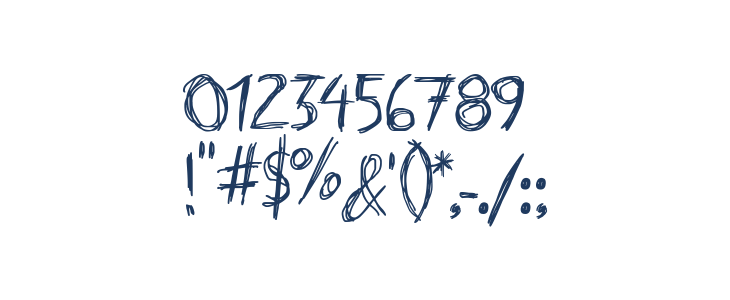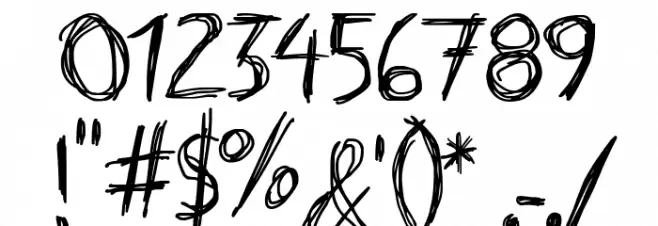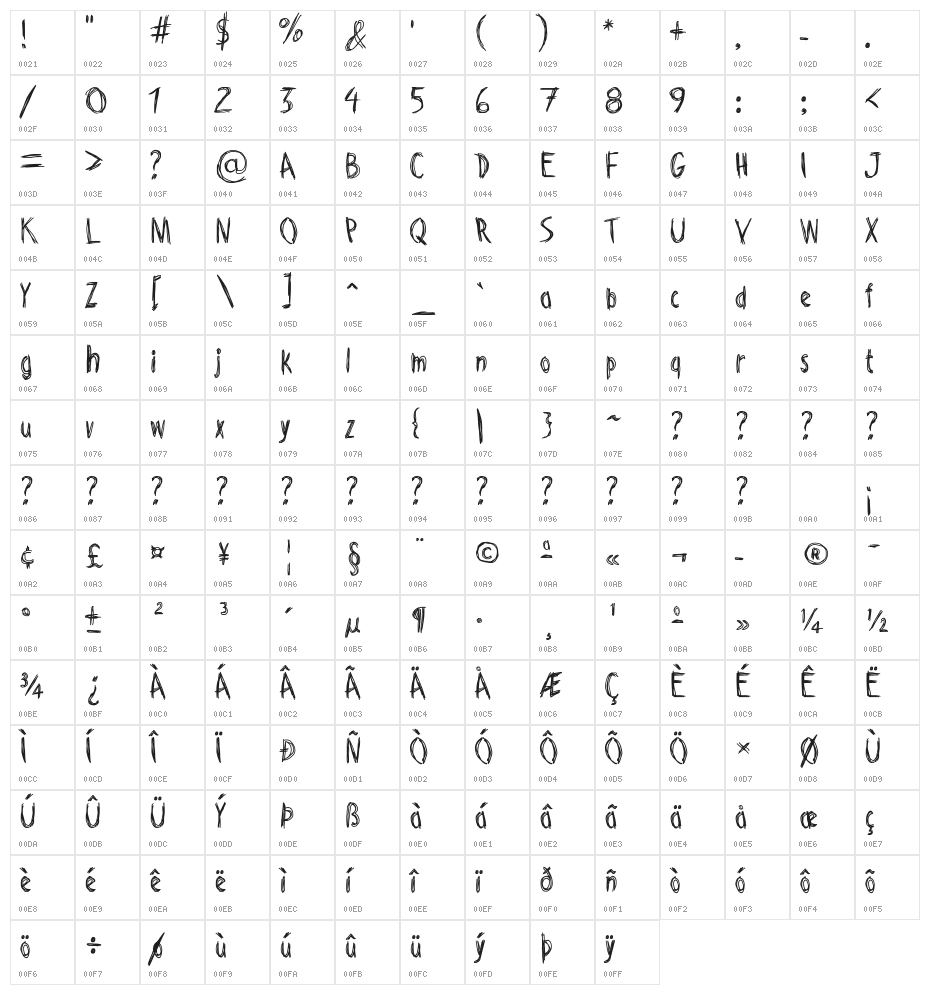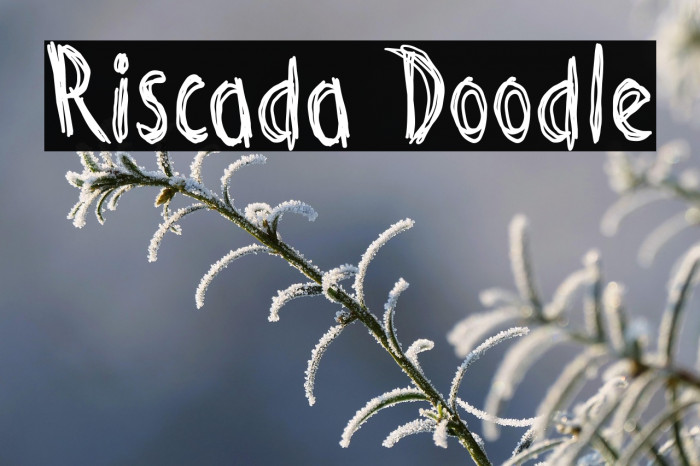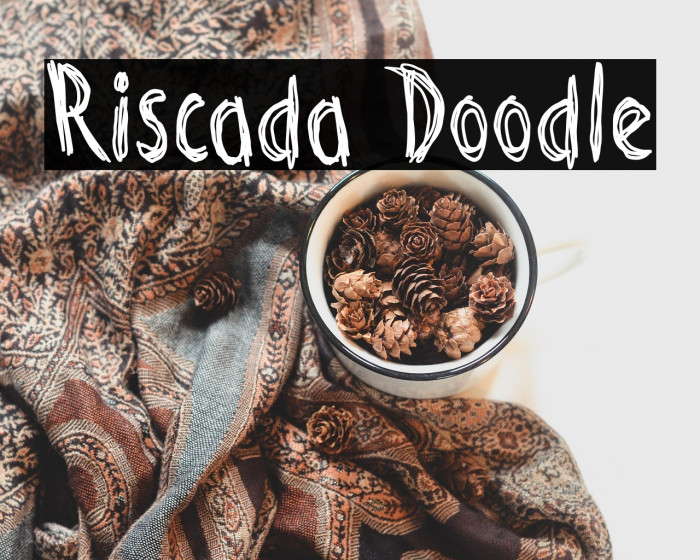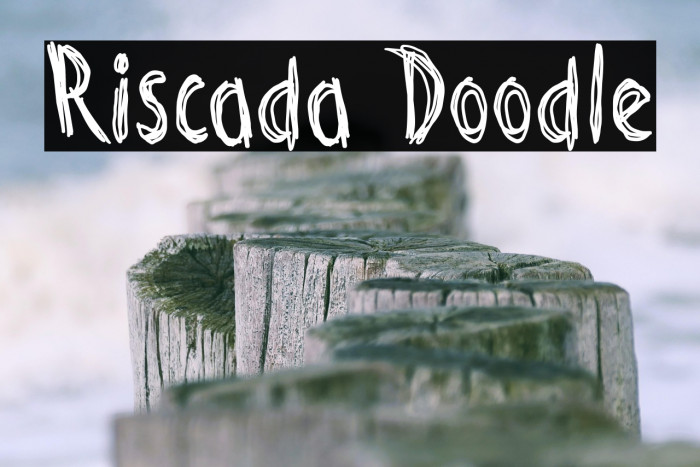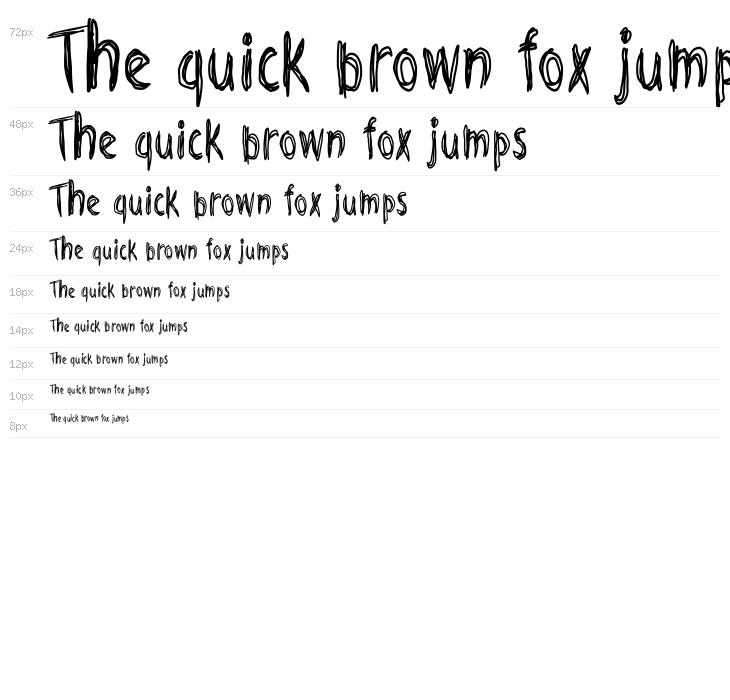
Riscada Doodle Font
Riscada Doodle Description
This font features a playful and dynamic style, characterized by its hand-drawn, doodle-like appearance. The letters are irregular and slightly chaotic, with strokes that vary in thickness, giving it a lively and energetic feel. The uppercase and lowercase letters maintain a consistent style, with exaggerated curves and angles that add to its whimsical nature. The numbers and special characters follow the same aesthetic, ensuring a cohesive look across all glyphs. This font is perfect for projects that require a fun and informal touch, such as children's books, creative posters, or artistic branding.